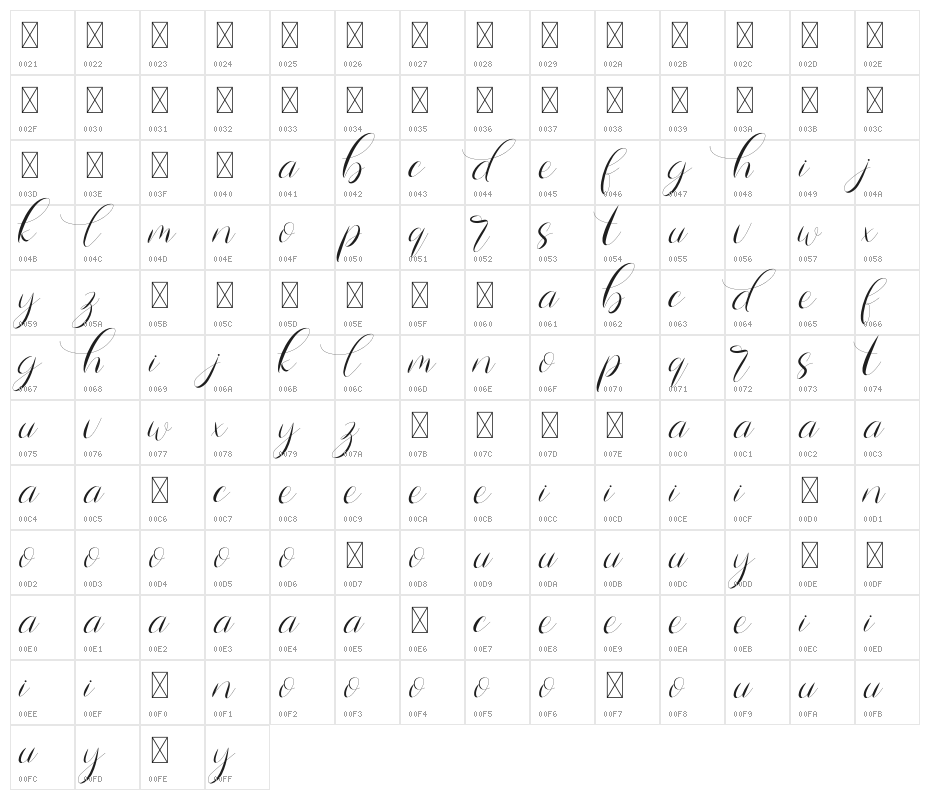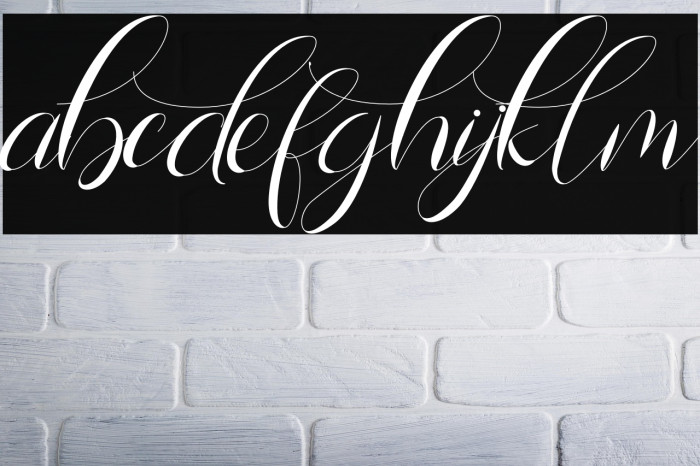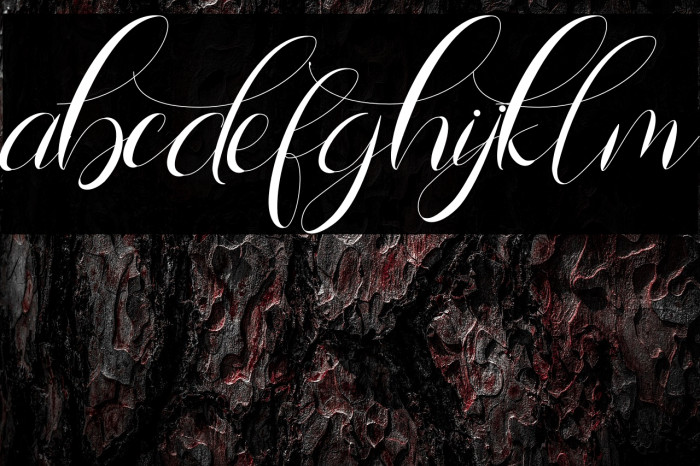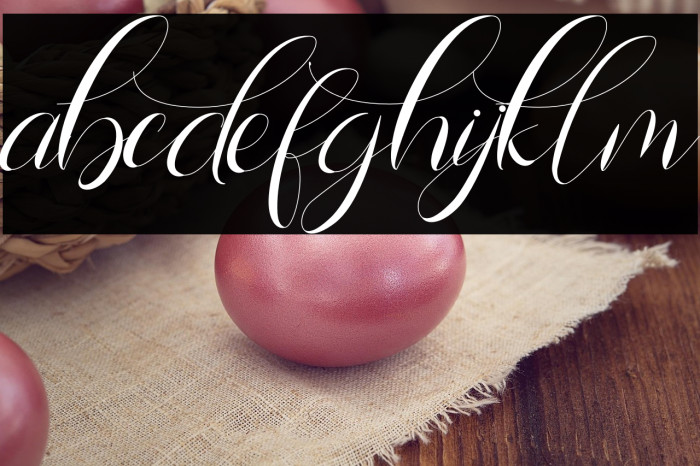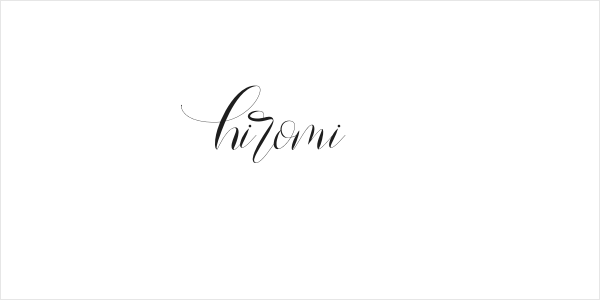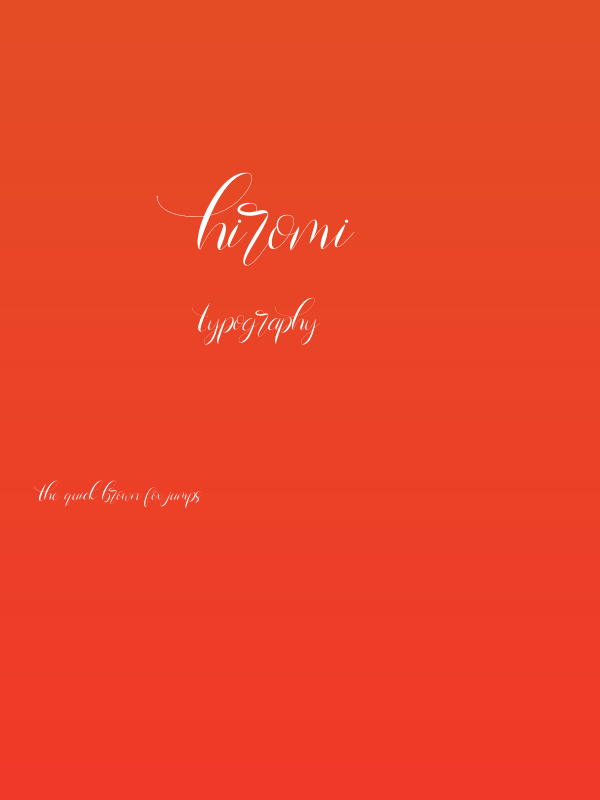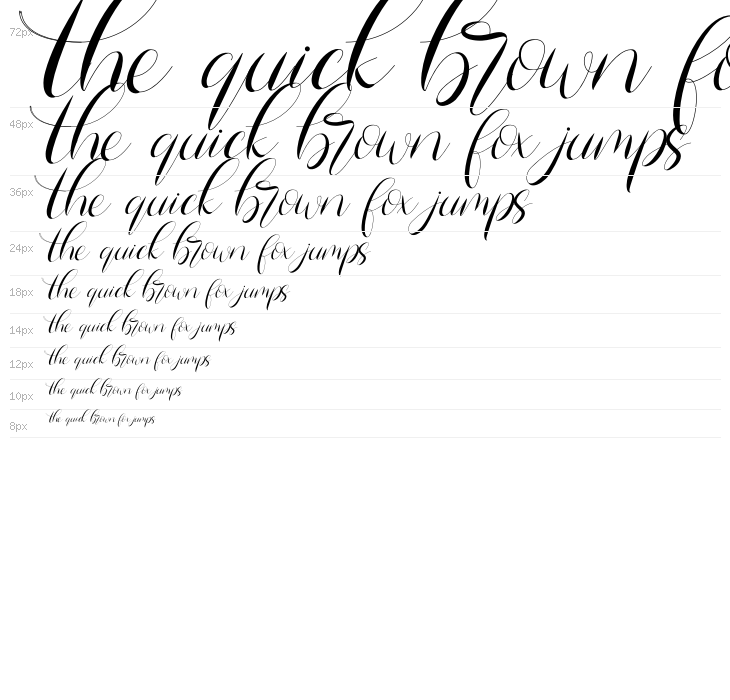
Hiromi Font
Hiromi Description
This elegant script font features beautifully flowing, interconnected letters with high contrast between thick and thin strokes. The uppercase letters are adorned with elaborate swashes and flourishes, giving the font a sophisticated and ornate appearance. The lowercase letters maintain a consistent slant, enhancing the cursive style. The overall design is graceful and fluid, making it ideal for formal and decorative applications. The font's intricate details and stylish curves create a sense of luxury and refinement, perfect for projects that require a touch of elegance.
| Proposed Projects | Ideal for wedding invitations, luxury branding, elegant stationery, and formal event materials. |